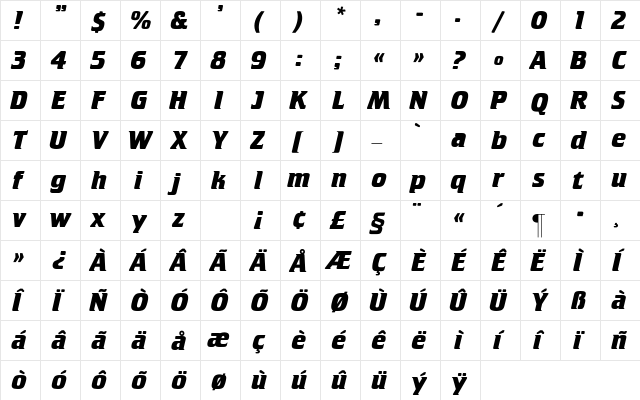
Crillee-Bold Regular Font Preview
Crillee-Bold Regular
Design Context for Crillee-Bold Typeface
Crillee-Bold is a composed and adaptable typeface that performs quietly and consistently across a wide range of design contexts. Its bold stroke weight gives it real presence on the page.